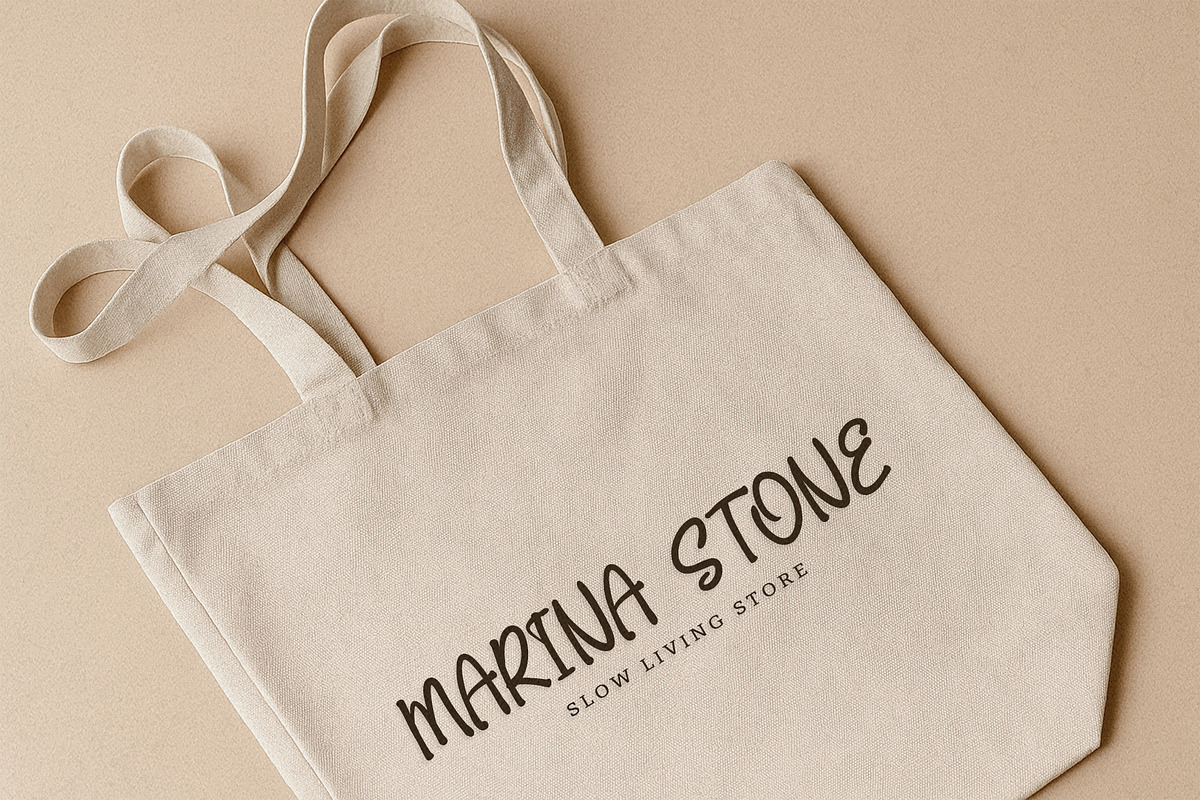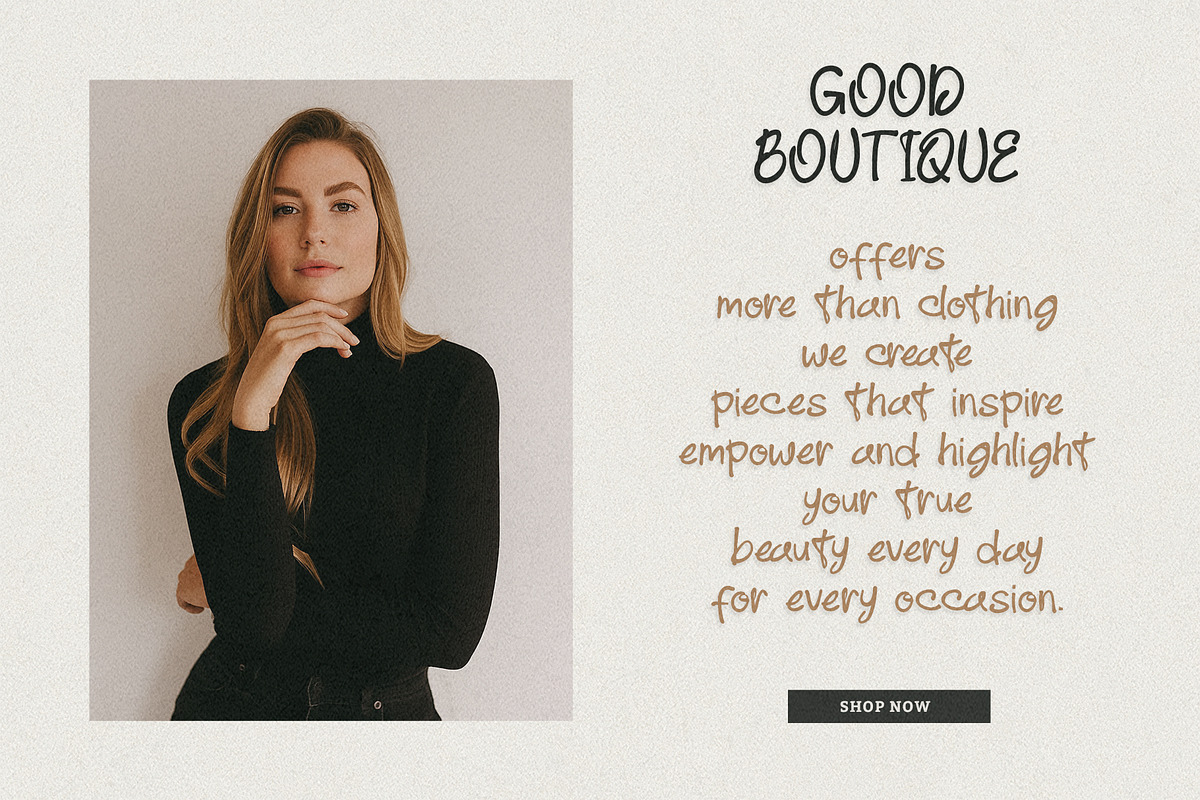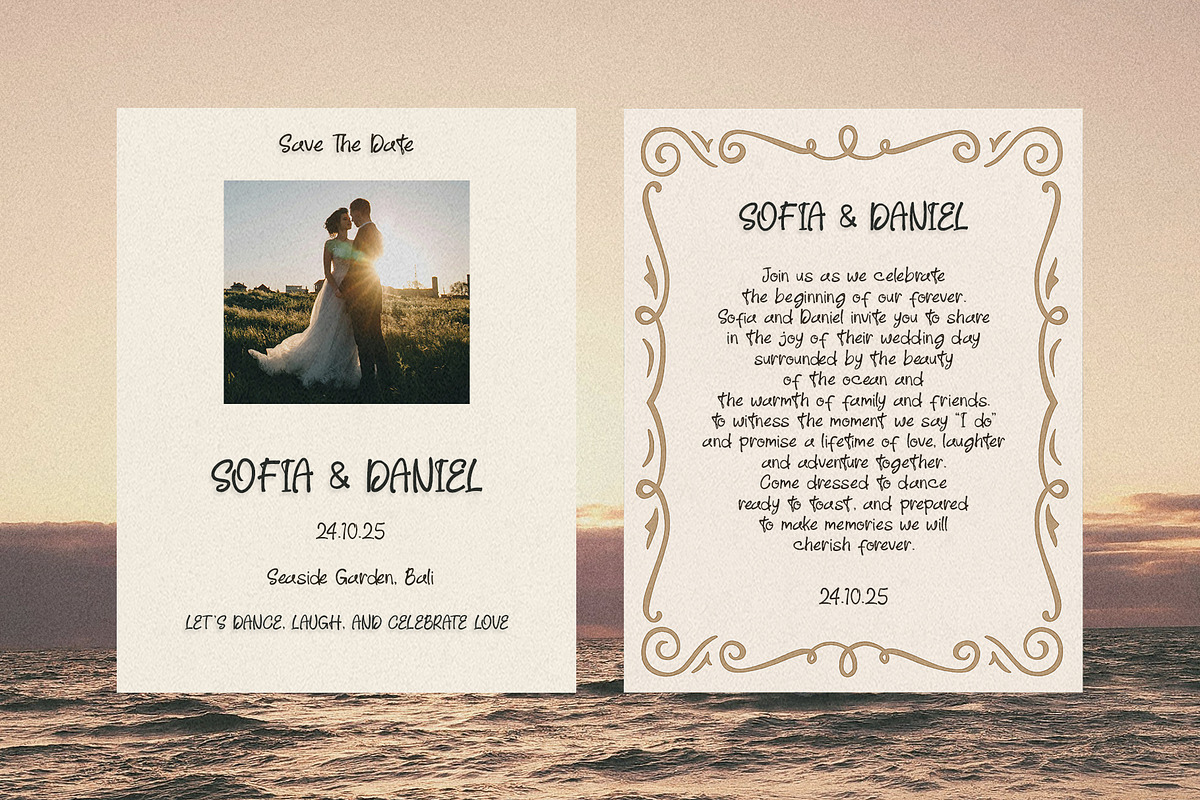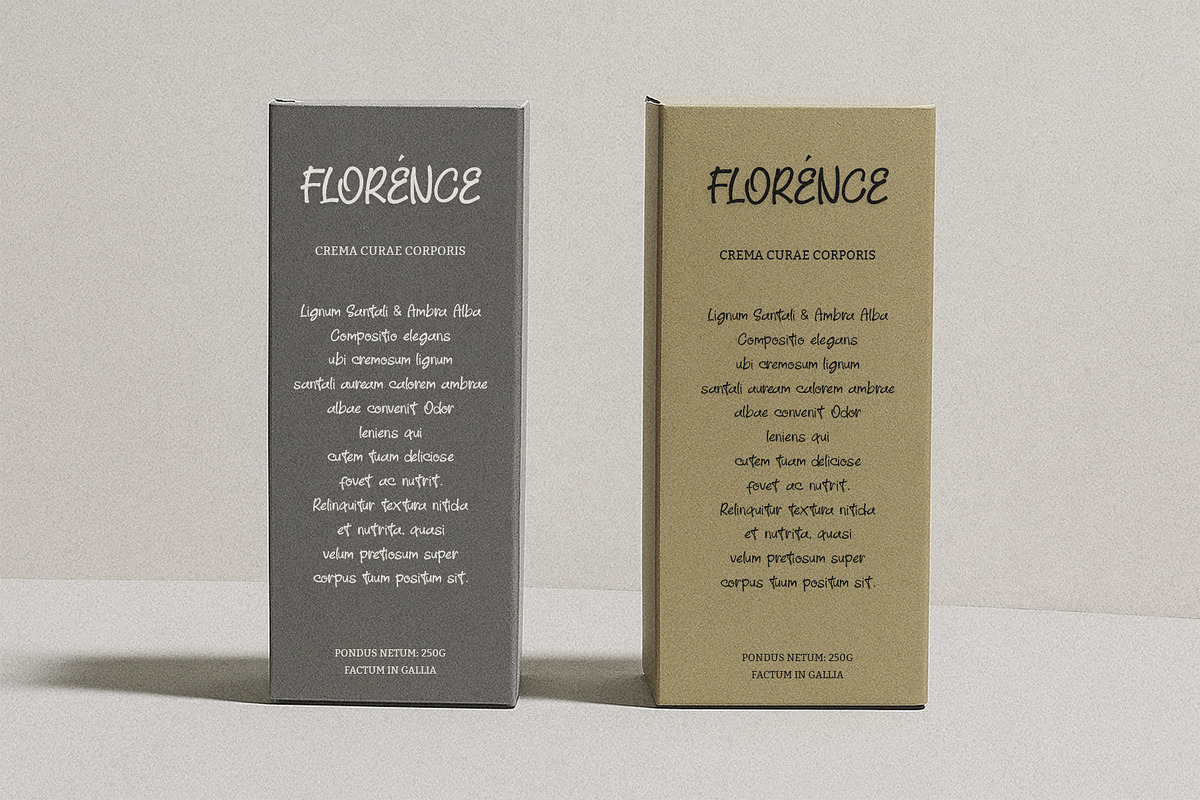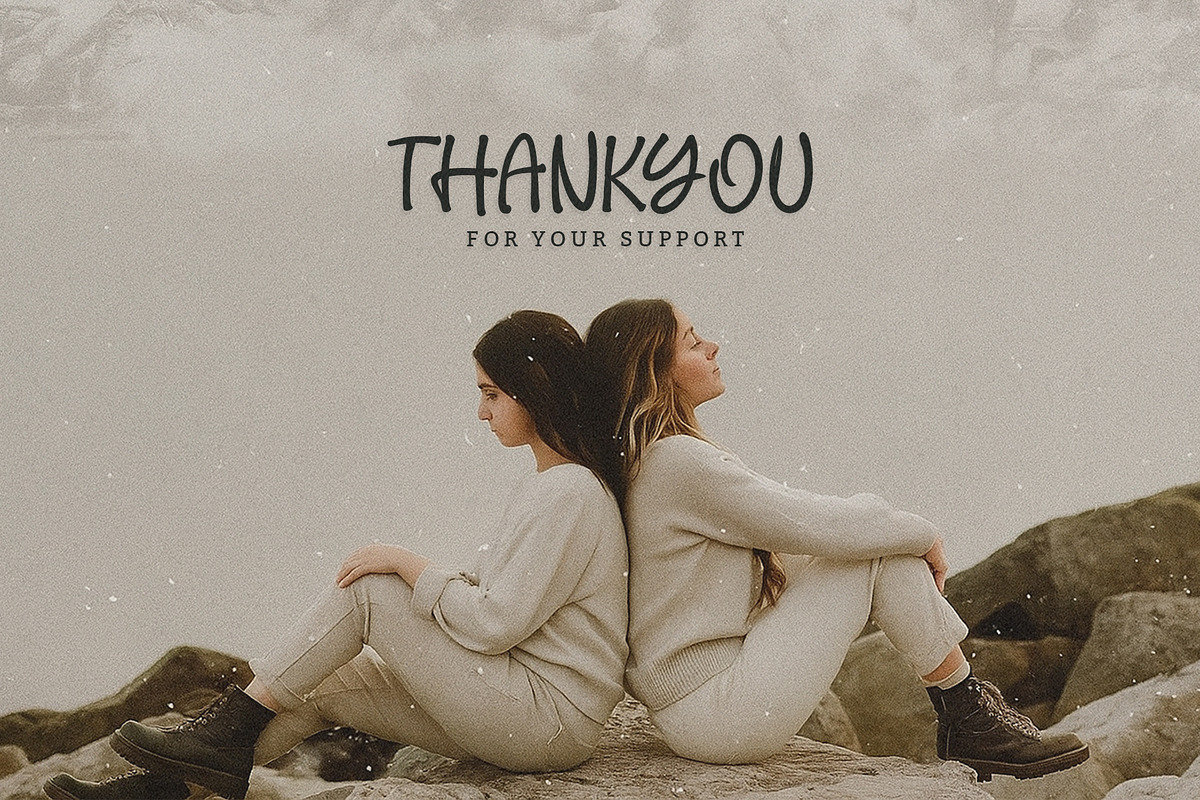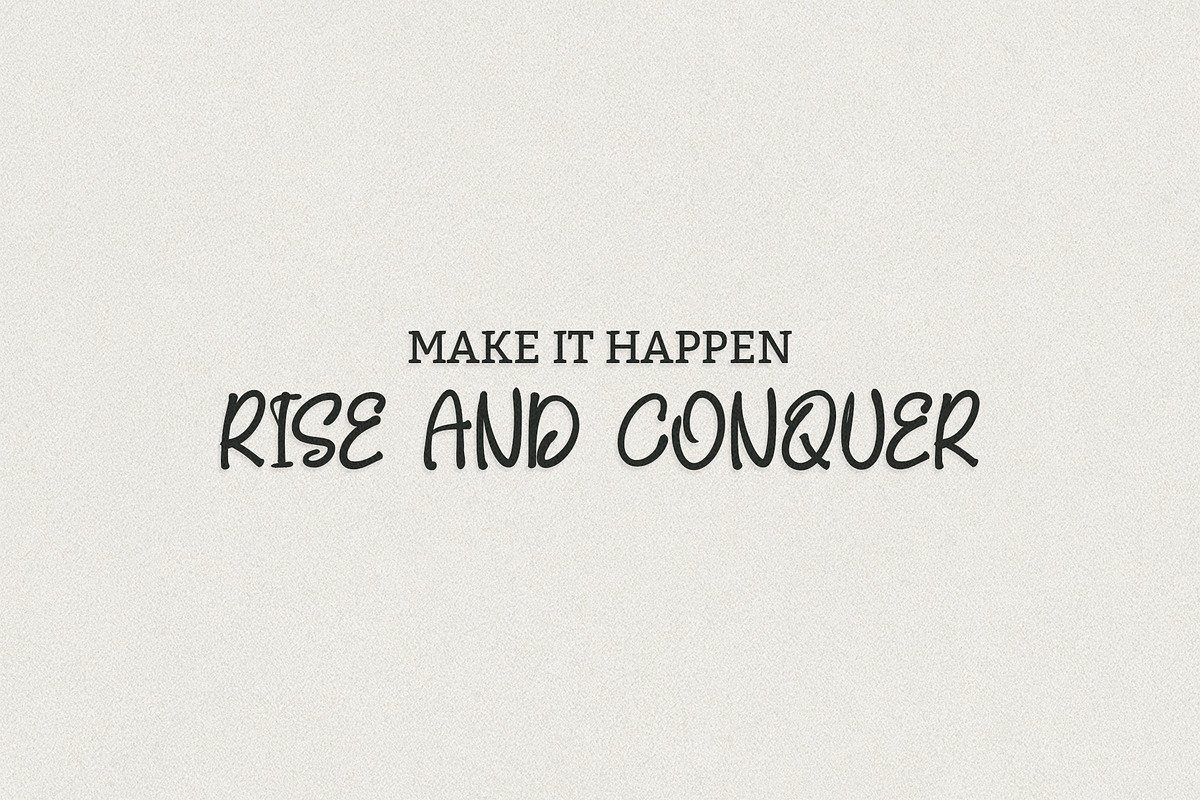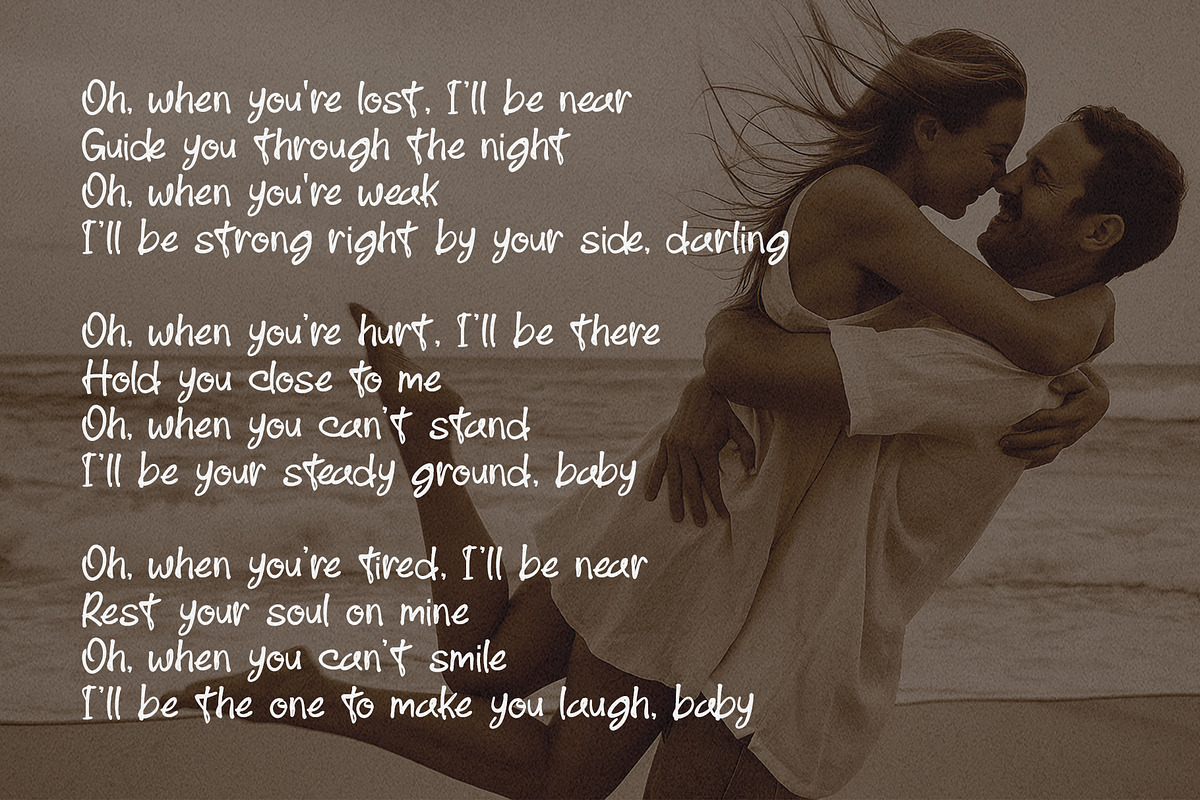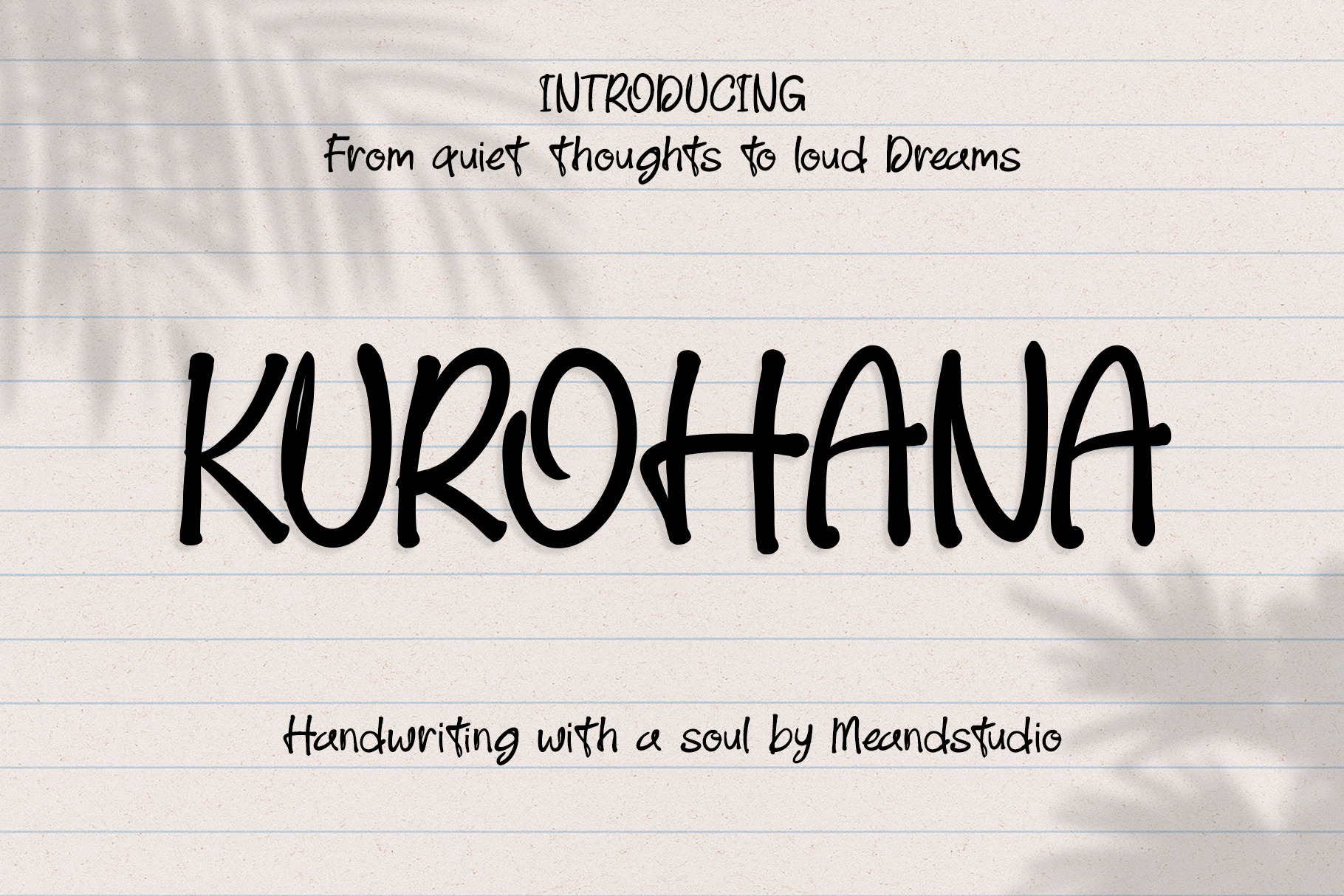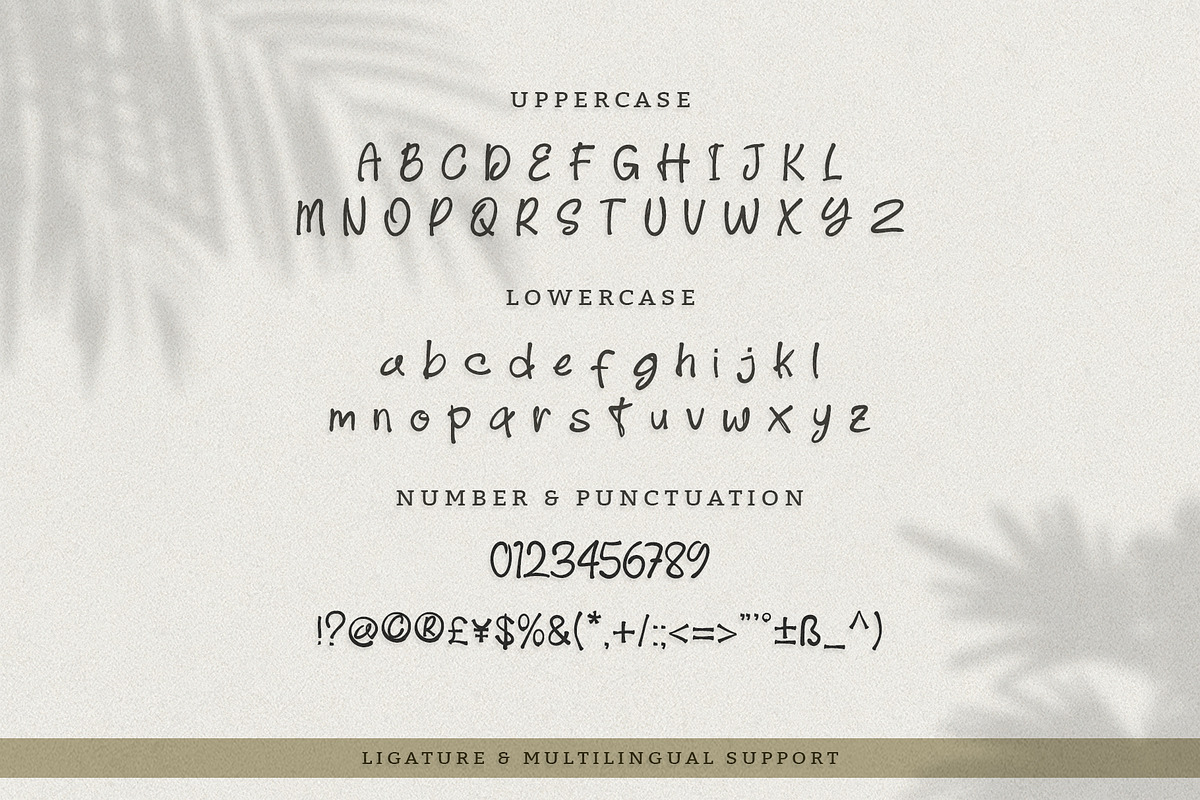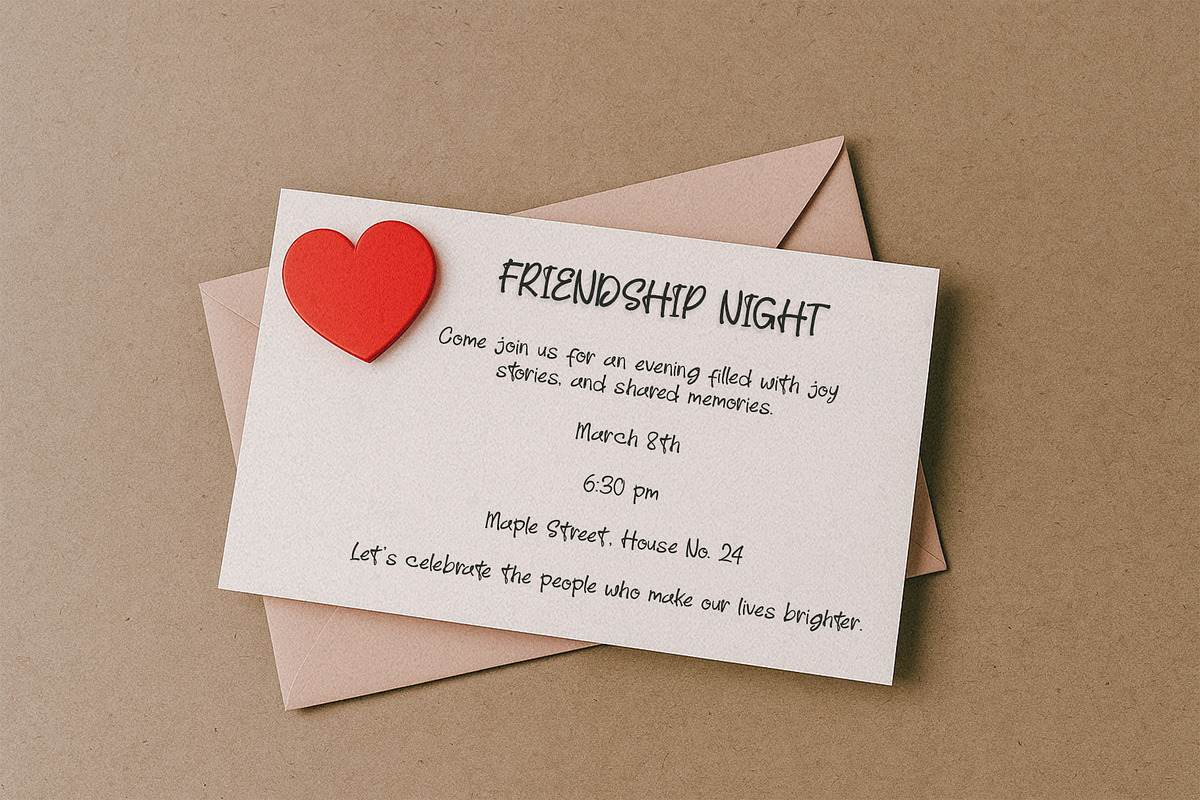
KUROHANA – Handwritten Font
Introducing Kurohana, a handwritten font that carries emotions from quiet thoughts to loud dreams. Designed with a natural flow and clean strokes, Kurohana brings a touch of authenticity and personality to every design.
This font is perfect for wedding invitations, branding, social media posts, packaging, greeting cards, logos, fashion projects, and more. With its unique balance of playfulness and elegance, Kurohana helps your words feel more alive and meaningful.
Uppercase & Lowercase letters
Ligatures & Multilingual Support
Use Kurohana to create designs that feel heartfelt, inspiring, and stylish. Whether you’re crafting a brand identity or designing personal keepsakes, this font adds a human touch that connects with your audience.